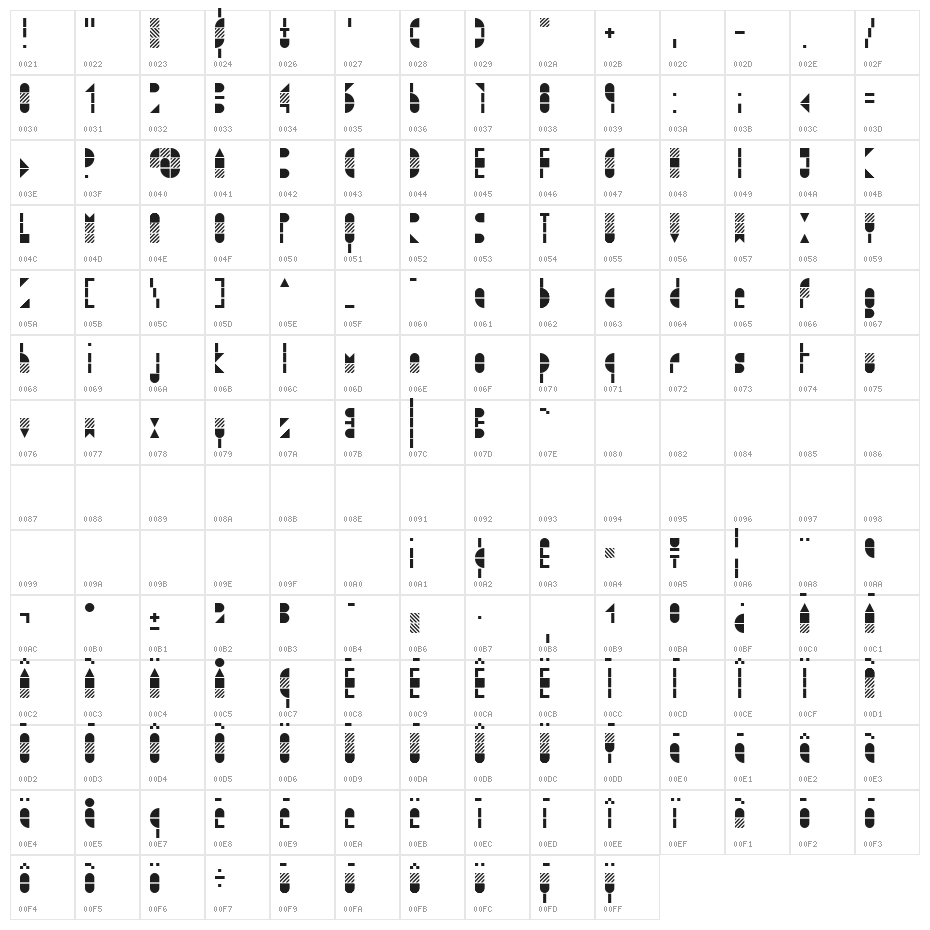
modulo3 Font
modulo3 Description
This font features a bold, geometric design with a unique pattern of solid and striped segments. Each character is constructed from a combination of circles, triangles, and rectangles, creating a visually striking and modern appearance. The use of negative space and contrasting patterns gives the font a dynamic and playful feel. The uppercase and lowercase letters maintain a consistent style, while numbers and special characters are designed to match the overall aesthetic. This font is ideal for projects that require a bold statement and a contemporary edge.
Proposed ProjectsIdeal for branding, posters, album covers, and modern art projects.